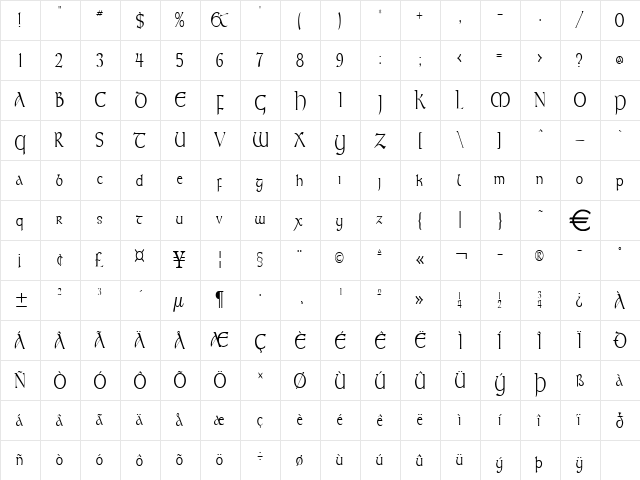
KeltThin Normal Font Preview
KeltThin Normal
KeltThin Normal Font Details
Design Context for KeltThin Typeface
KeltThin takes a measured approach to typography — its balanced proportions and neutral character make it a reliable workhorse for both digital and print work. The delicate stroke weight brings airiness and refinement to layouts.